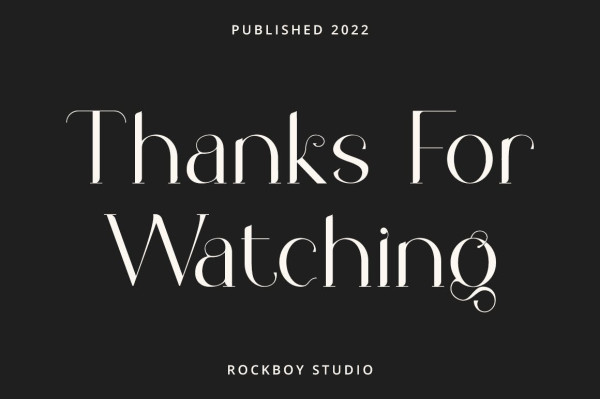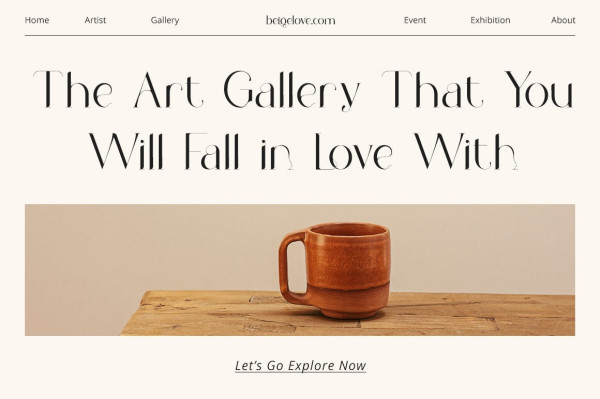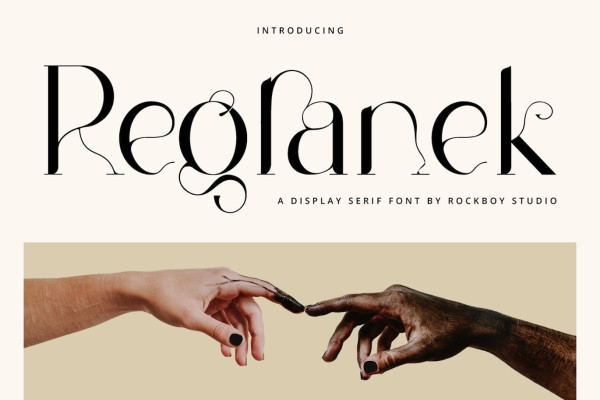
Regranek Font
Regranek Font is an elegant serif font with thin, distinct letters. Suitable for a wide variety of designs thanks to its clean style, this font has the potential to become your favorite typeface, whatever the occasion!